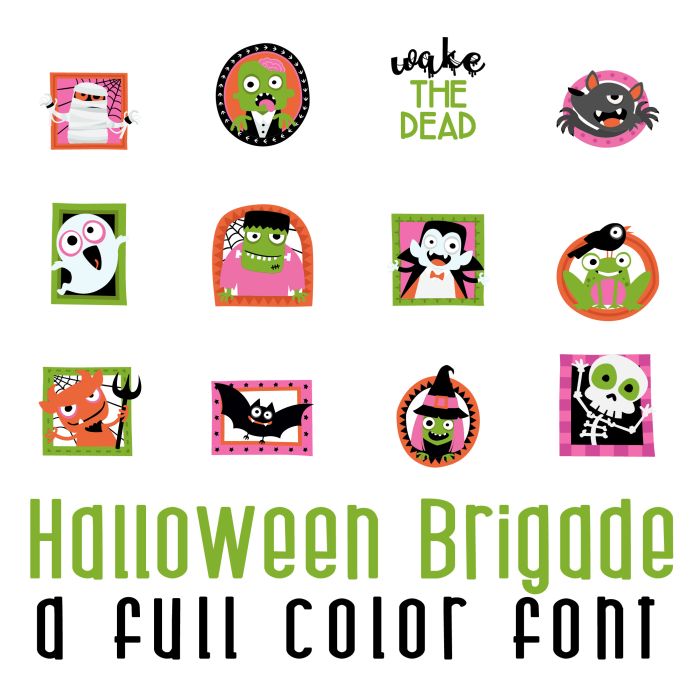
This fun full color font features 26 whimsical Halloween characters perfect for the holiday, gifts, cards, crafts, decor, parties, classrooms, planner stickers, scrap book pages and more!